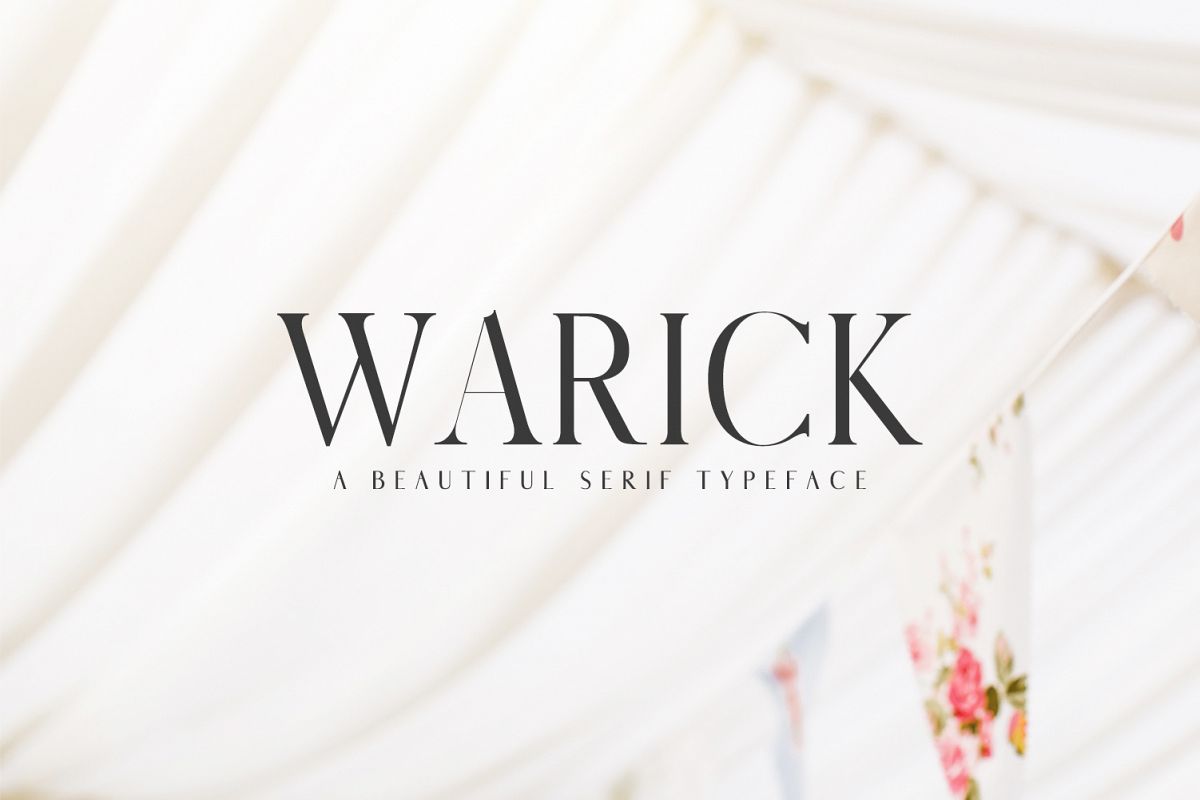
Warick Serif Font Family
Warick is a modern, classy serif font typeface that looks incredible in every context. It includes all basic glyphs with Non-English characters. This font will pair beautifully with the script, signature or handwriting style. It is best for headlines, titles, magazines headings, logo, advertising, posters, quotes, web layouts, invitations, packaging design, books, branding, and nearly any creative design.
• Font Weight: Regular, Round, Light, Light-Round, Thin and Thin-Round
Warick Font Features:
• Uppercase Multilingual Letters
• Lowercase Multilingual Letters
• Non English Characters ( Latin Extended A )